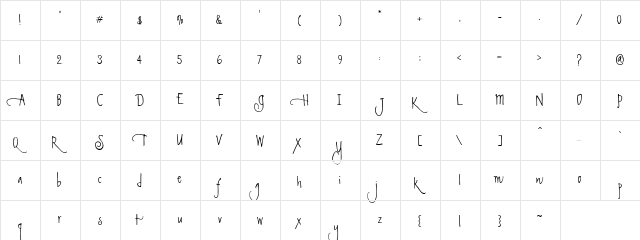
Sketchley Swash BT swash
Design Context for Sketchley Swash BT Typeface
Sketchley Swash BT flows with the natural rhythm of handwritten lettering, making it ideal for designs that call for warmth and personal expression.
Font Pairing: Combine Sketchley Swash BT with a simple geometric sans for maximum contrast — the tension between flowing curves and clean structure is a classic typographic pairing.
Pro Tip: Use Sketchley Swash BT for short runs of text — names, titles, or taglines. Extended body copy in script faces tires the eye quickly.